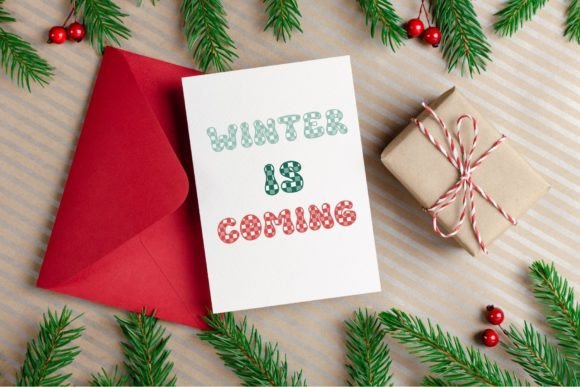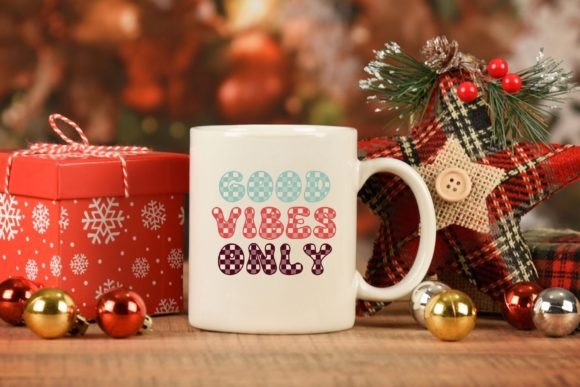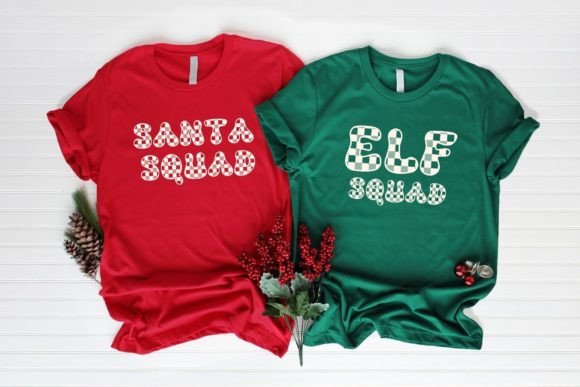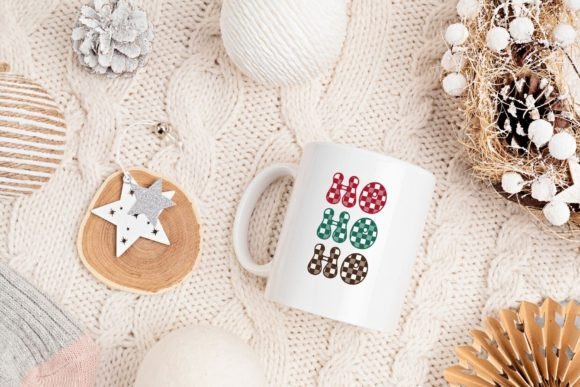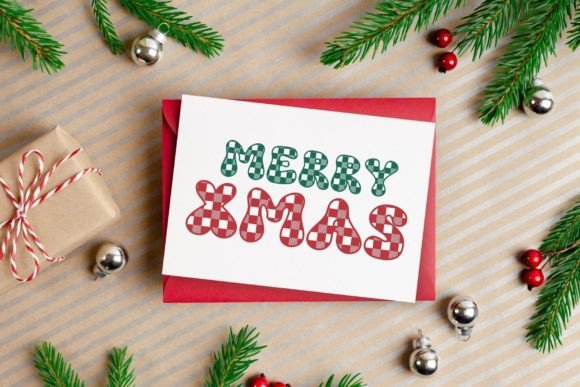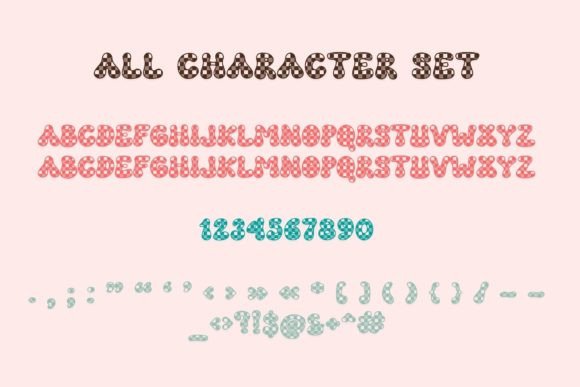
The Magic of Winter Wonderland Typography
It’s the most wonderful time of the year – Christmas is just around the corner, and with it comes the joy of creating festive designs that spread holiday cheer. As you sit at your desk, surrounded by twinkling lights and the scent of pine, you feel the urge to add a touch of whimsy to your next project. You start brainstorming ideas, and before you know it, you’re on a mission to find the perfect font to capture the essence of the season.
That’s when you stumble upon the charming Buffalo Plaid Font – a delightful, decorative font that embodies the playfulness and authenticity of the winter wonderland. This font is more than just a pretty face; it’s a versatile tool that can elevate your designs, from blog posts and logos to invitations and decorations. Whether you’re a seasoned designer or a creative enthusiast, the Buffalo Plaid Font is an invaluable addition to your toolkit, sure to bring a smile to your face and joy to your clients’ faces.
Key Features of Buffalo Plaid Font
- Unique Characteristics: The font features a distinctive buffalo plaid pattern, with a grid of horizontal and vertical lines that give it a textured, rustic look.
- Font Style: Buffalo Plaid Font comes in two styles: Regular and Outline. The Regular style features the buffalo plaid pattern, while the Outline style displays the pattern as a thin outline.
Buffalo Plaid Font Review
When I first laid eyes on the Buffalo Plaid Font, I couldn’t help but think of those iconic flannel shirts from the 90s. The combination of red and black stripes gives off a rustic, outdoorsy vibe that’s perfect for any project with a country or vintage theme. ✨ The font is well-designed, with a clear and readable layout that works well in both body and display text.
One of the standout features of this font is its versatility. You can use it for anything from product labels to marketing materials, and it will always look great. ✨ The font is also highly customizable, with a range of font sizes and styles to choose from.
However, there are a few limitations to consider. ⚠️ For one, the font may be a bit too bold for some projects. If you’re looking for a more subtle design, you may want to consider a different font. ⚠️ Additionally, the font may not be as effective in smaller text sizes, where the stripes may become too fine and difficult to read.
Overall, I think the Buffalo Plaid Font is a great choice for any project with a rustic or vintage theme. While it may have a few limitations, its unique design and versatility make it a standout choice in the world of fonts.
- Unique, rustic design
- Well-designed for body and display text
- Perfect for country or vintage themes
- May be too bold for some projects
- May not be effective in smaller text sizes
Buffalo Plaid Font Practical Application Guide
Tips for Getting the Most Out of Buffalo Plaid Font
Use Buffalo Plaid Font for rustic, country-inspired designs. It pairs well with plaid patterns and earthy colors. Experiment with different font sizes and combinations to achieve the desired effect.
Can I customize the Buffalo Plaid Font to create a custom plaid pattern?
Yes, you can customize the Buffalo Plaid Font to create a custom plaid pattern. You can use a font editor or a graphics program to manipulate the font’s design and create a unique plaid pattern. However, this may require some technical expertise and may not be possible with all font editing software.